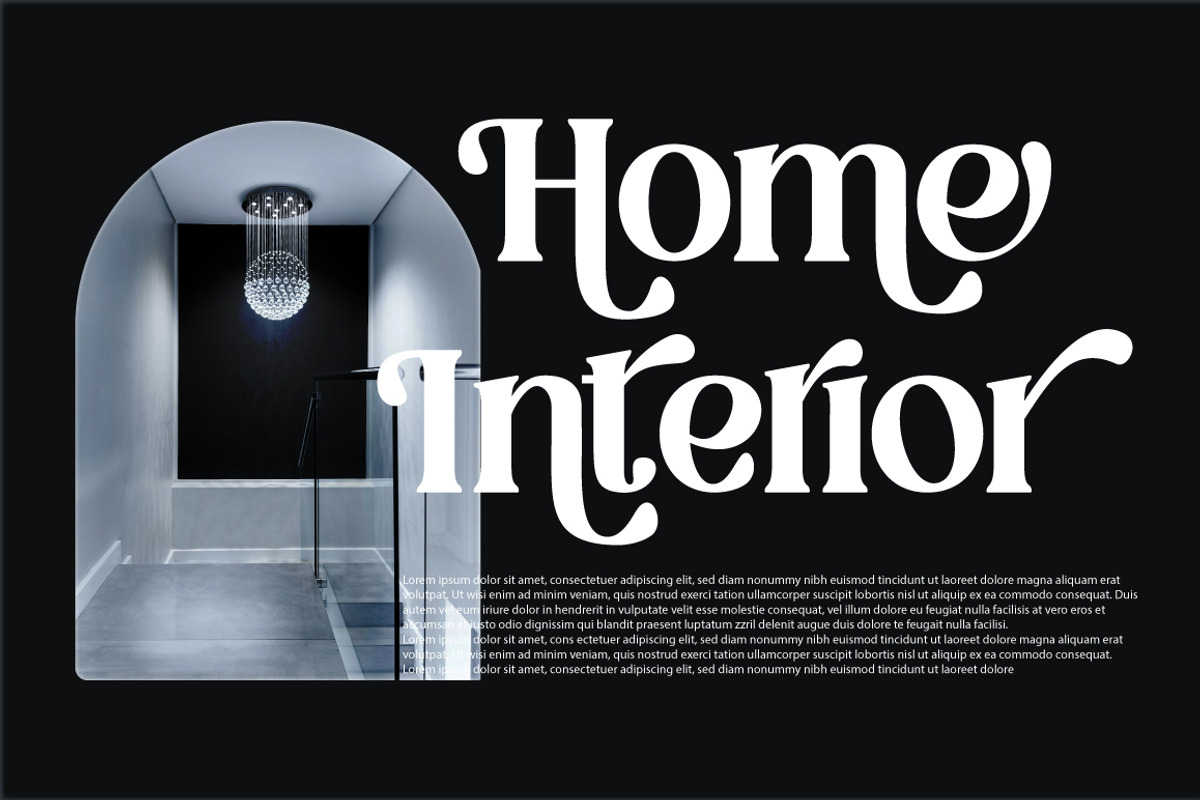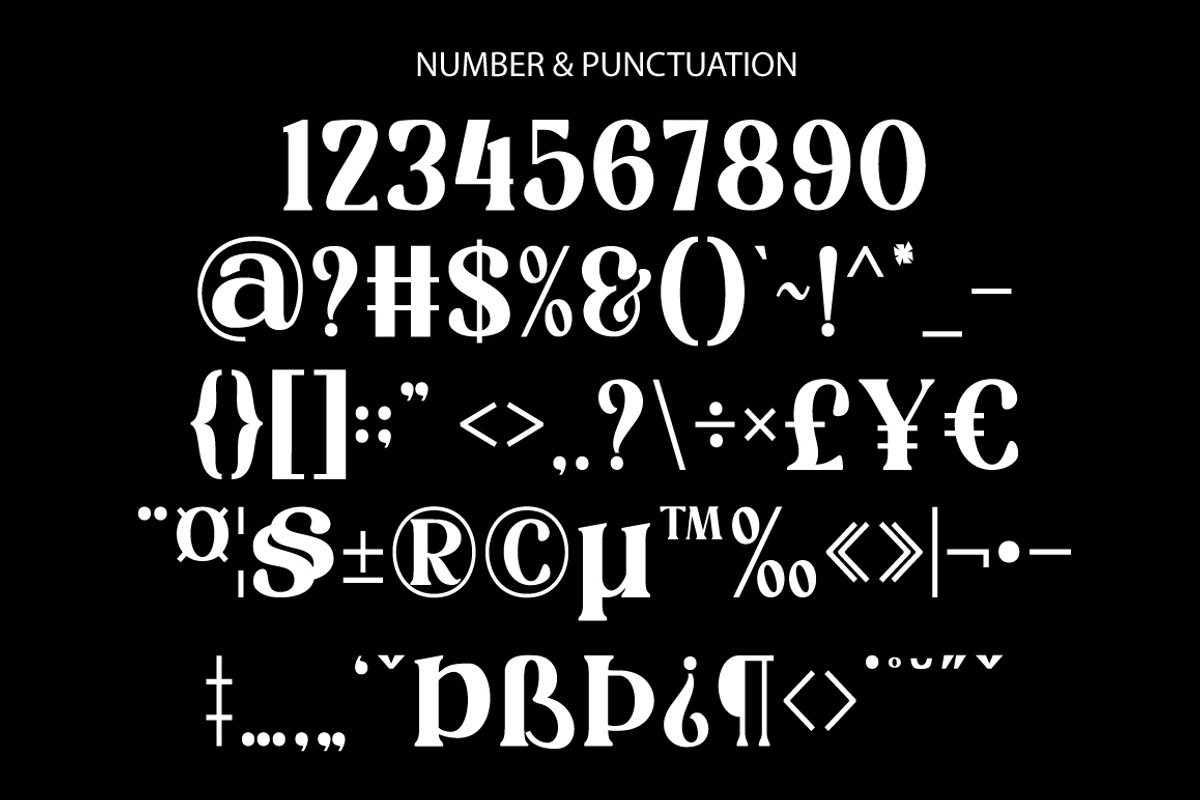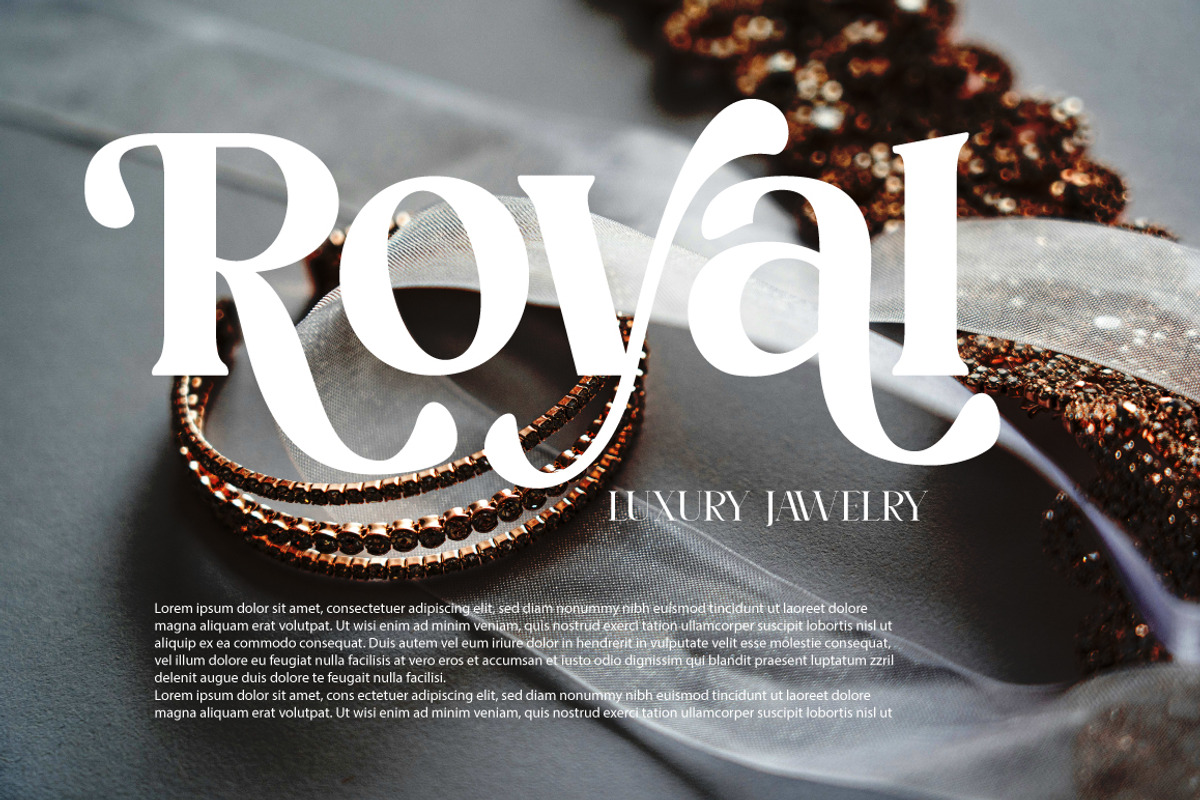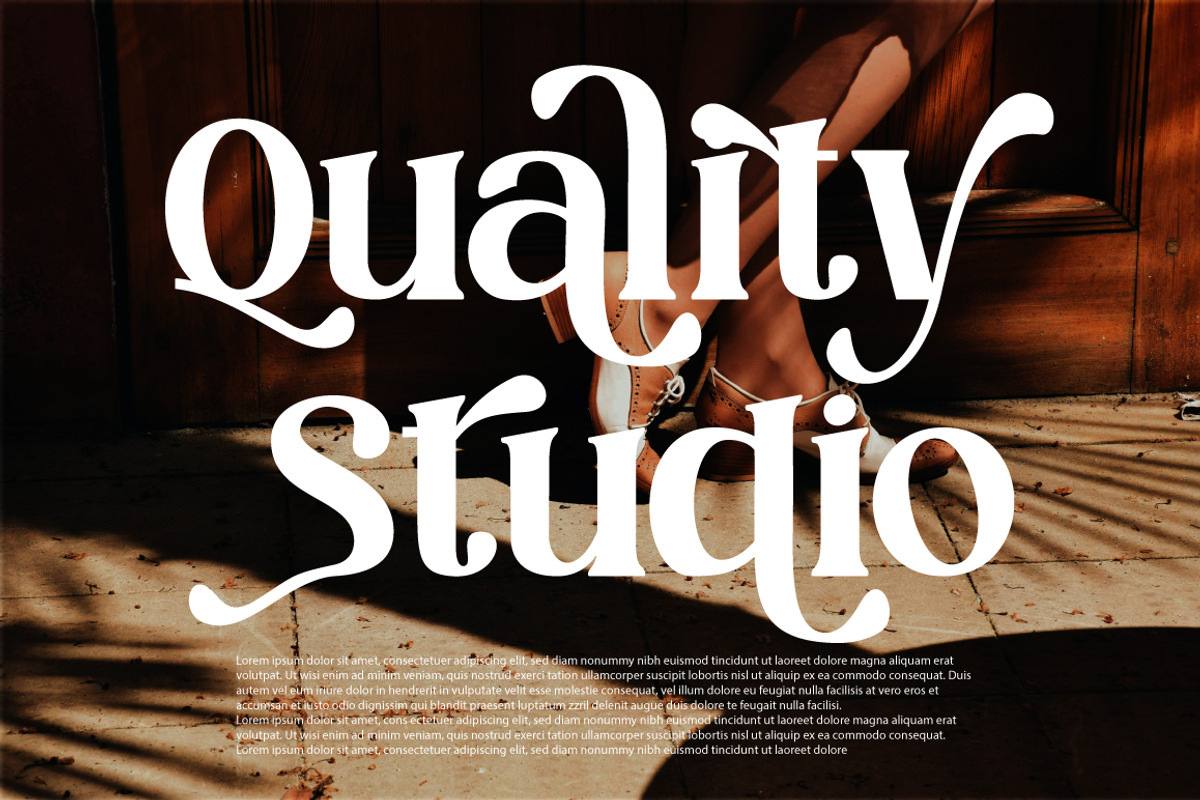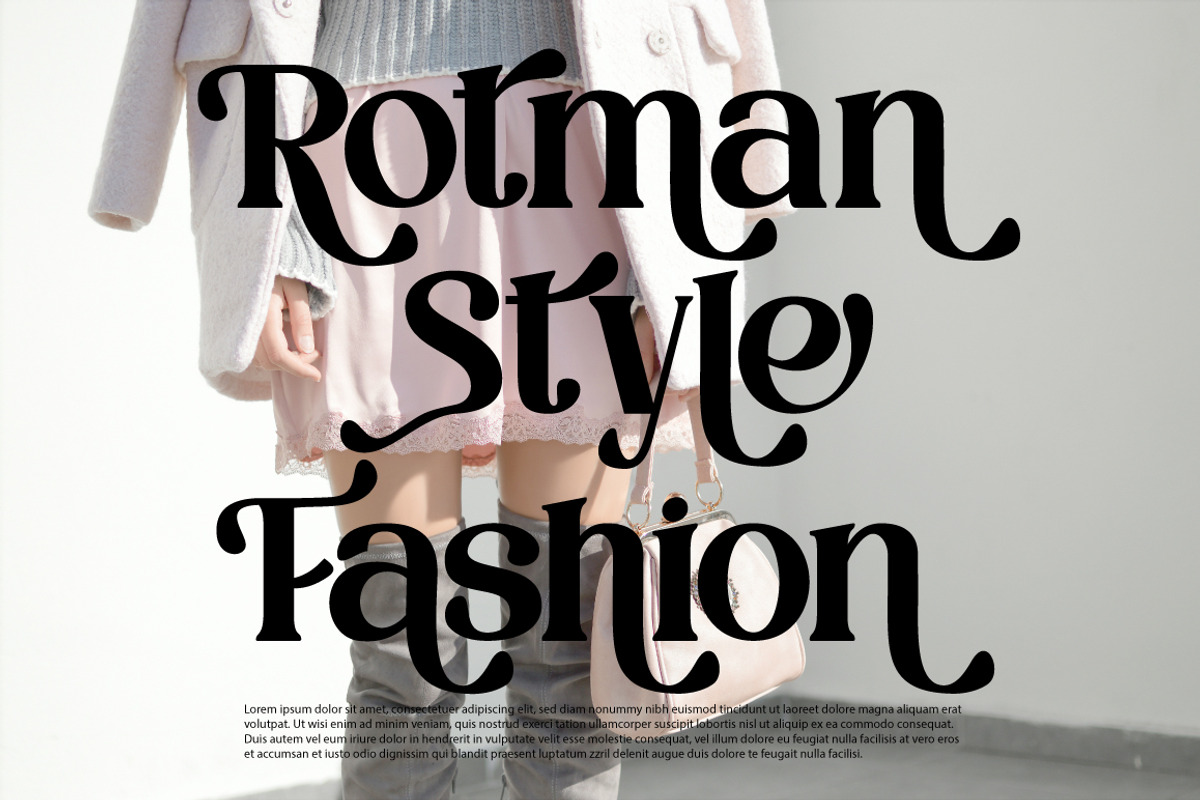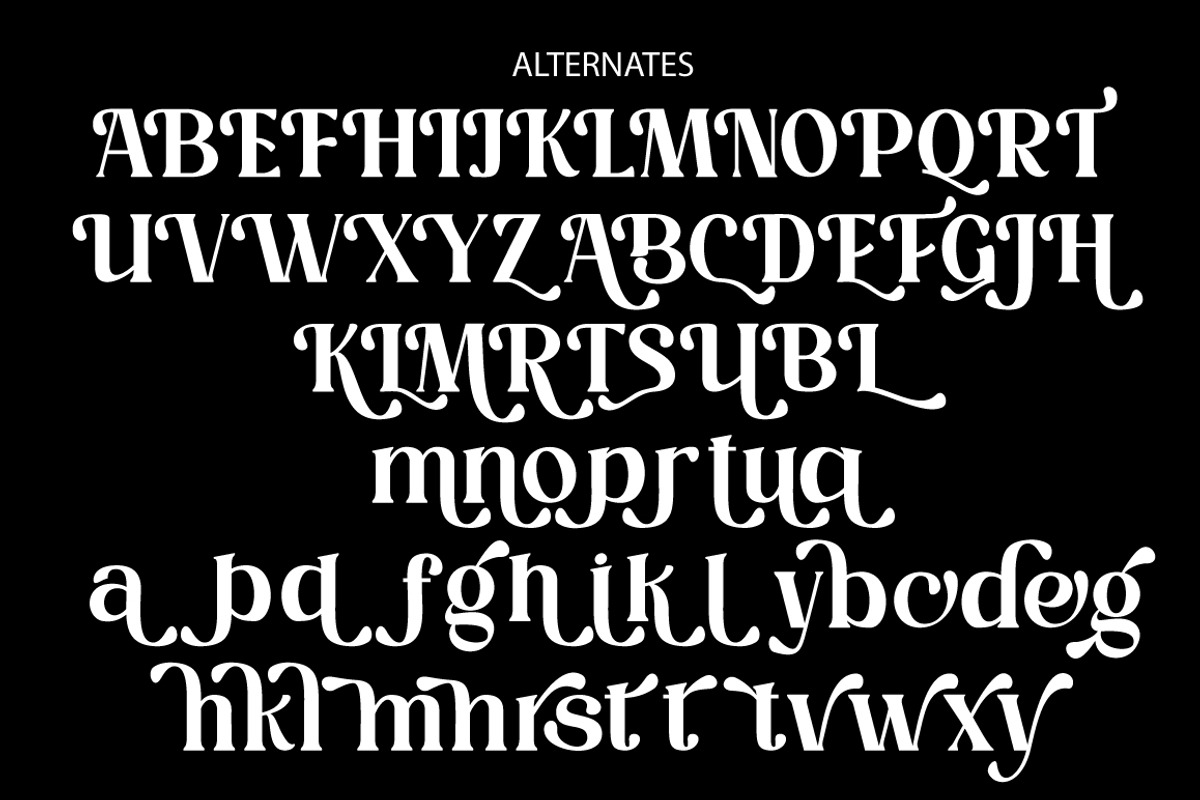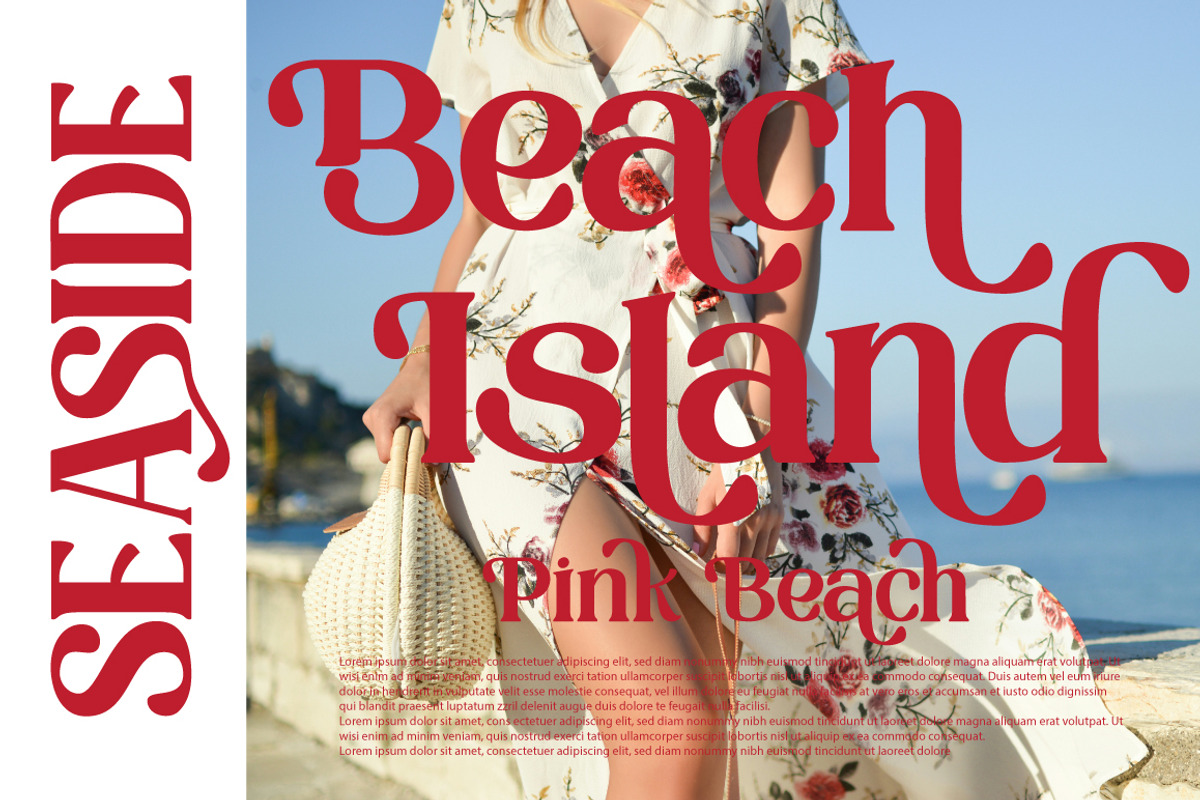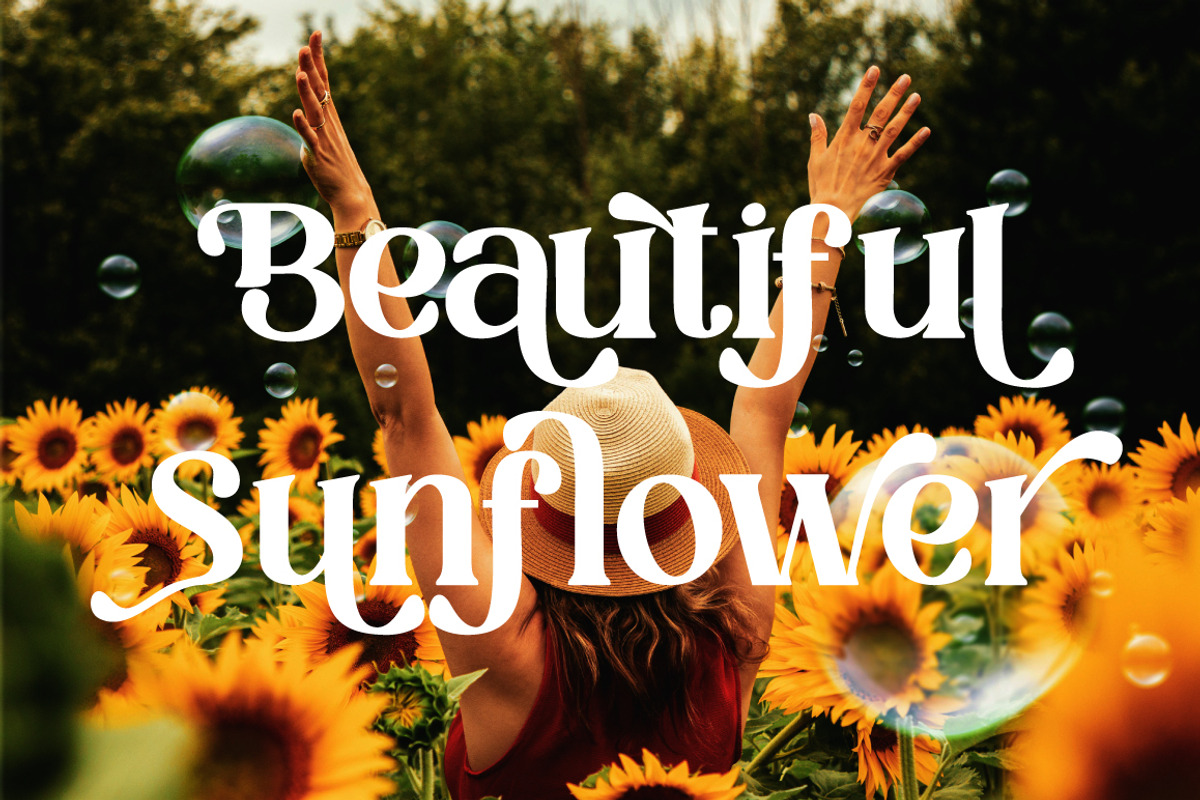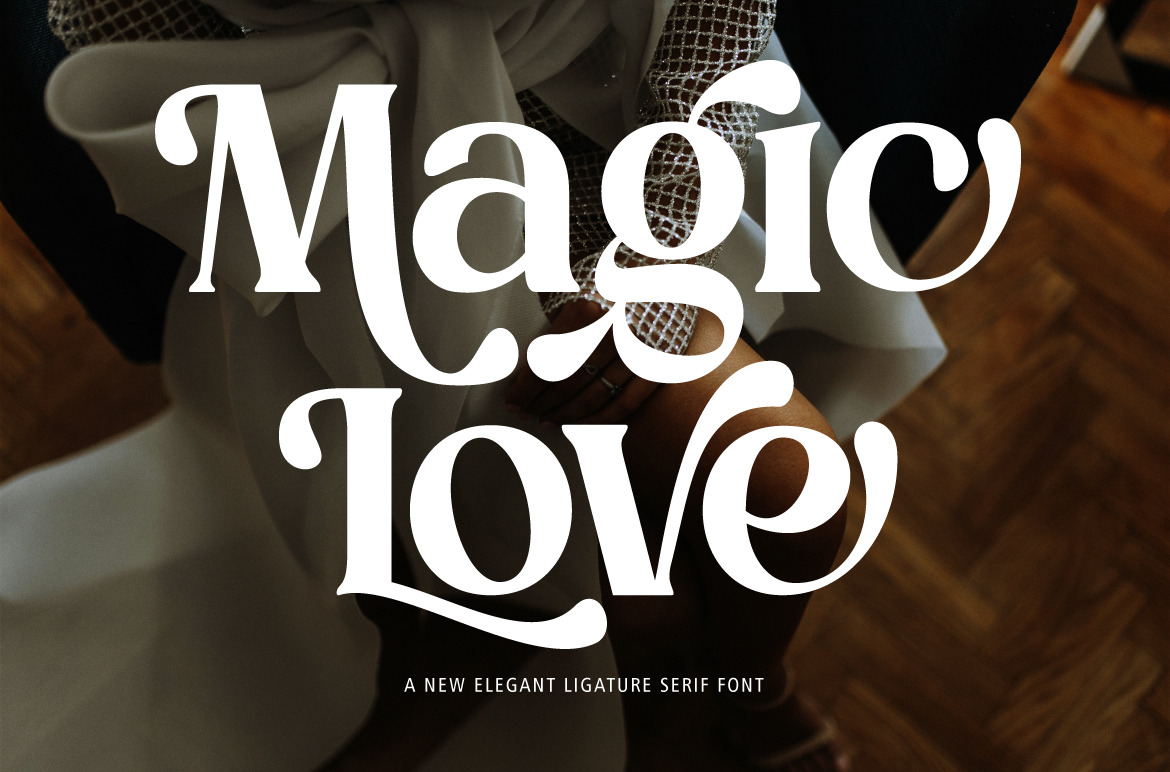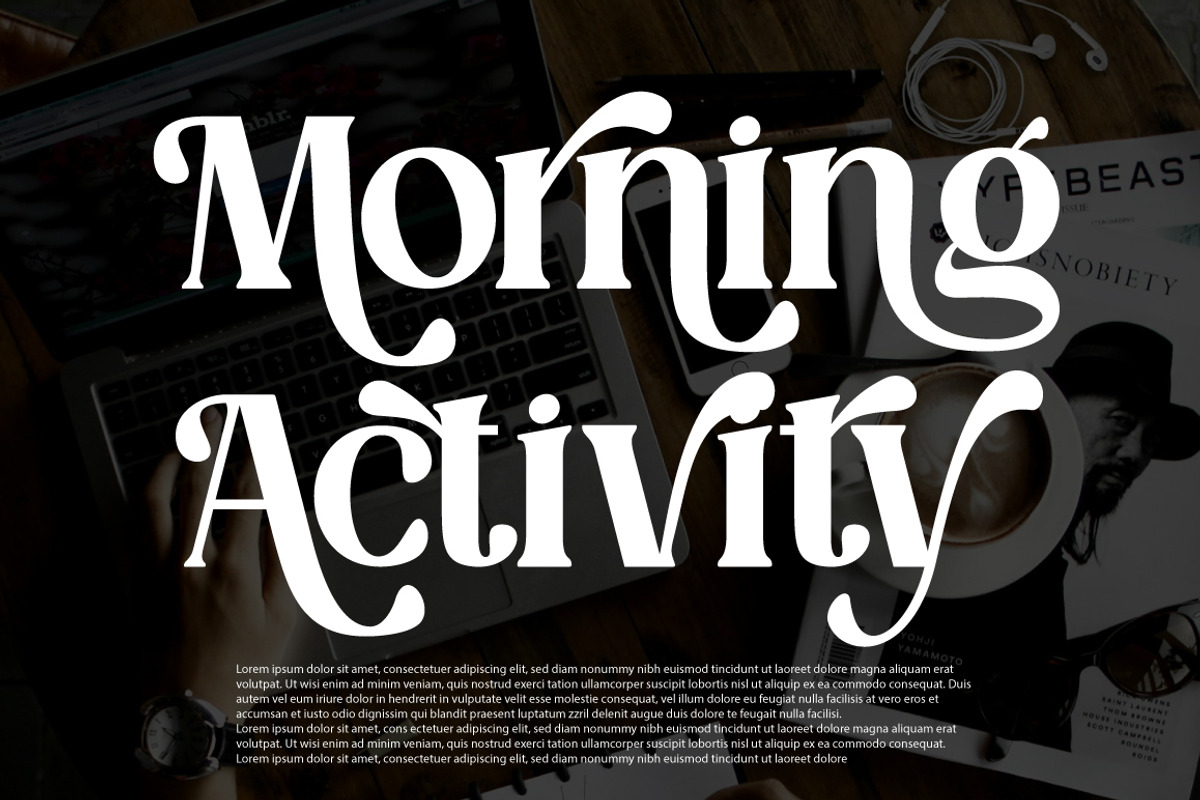
Magic Love Elegant Serif Font
I'm present to you, new retro serif called Magic Love!
Magic Love is a stylish font that is both retro and bold font. It's thick curves give a 70s groovy vibe with the serifs bringing it slightly back to traditional
Magic Love fits perfectly into those nostalgic moodboards and vintage logos. It come with a unique lower and uppercase plus numbers, punctuation & multilingual letters.